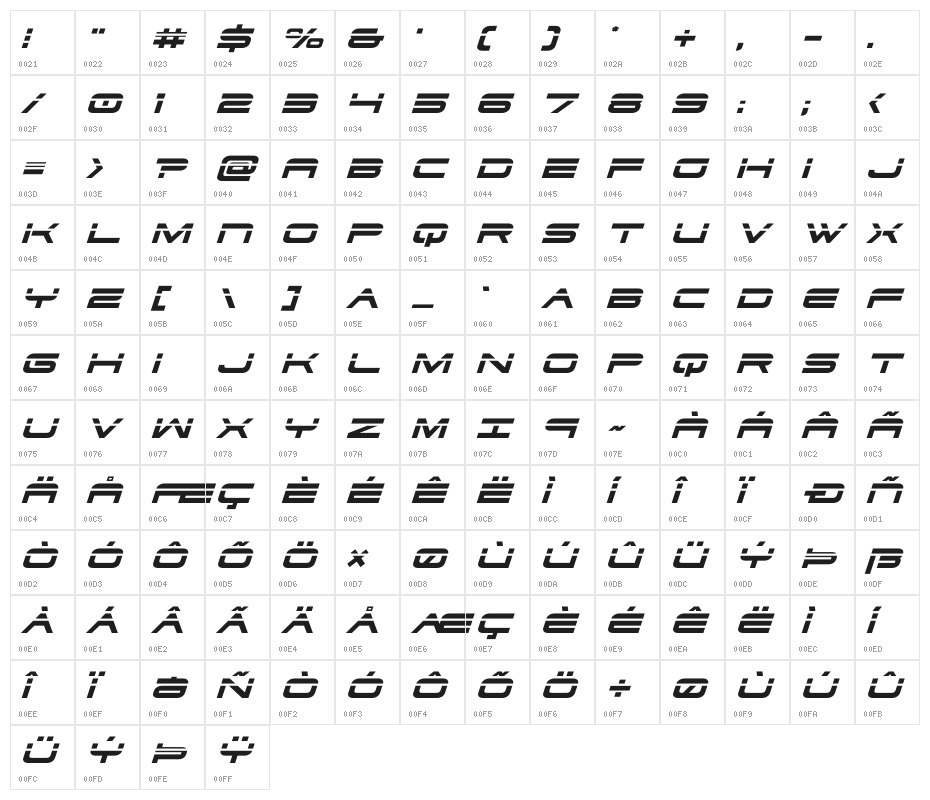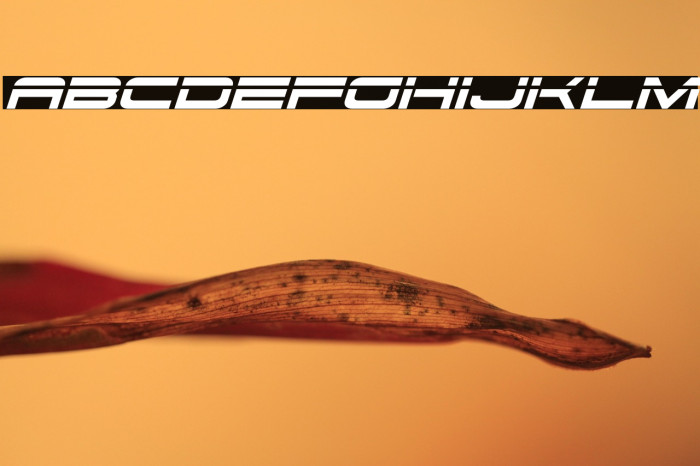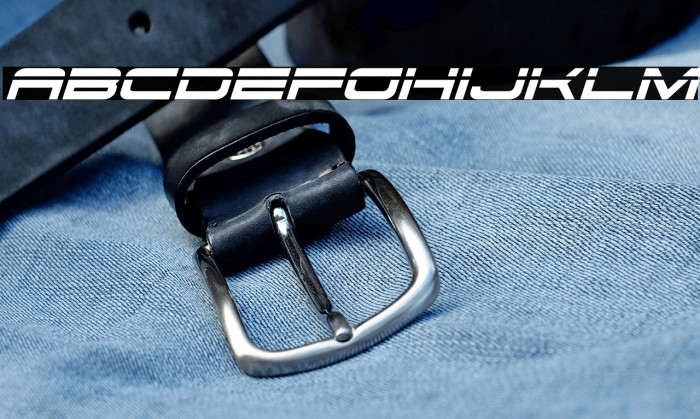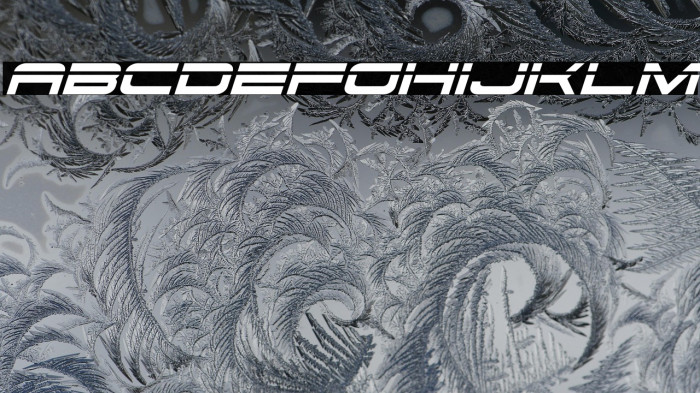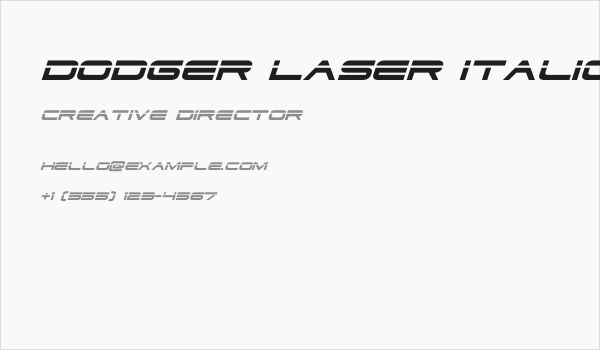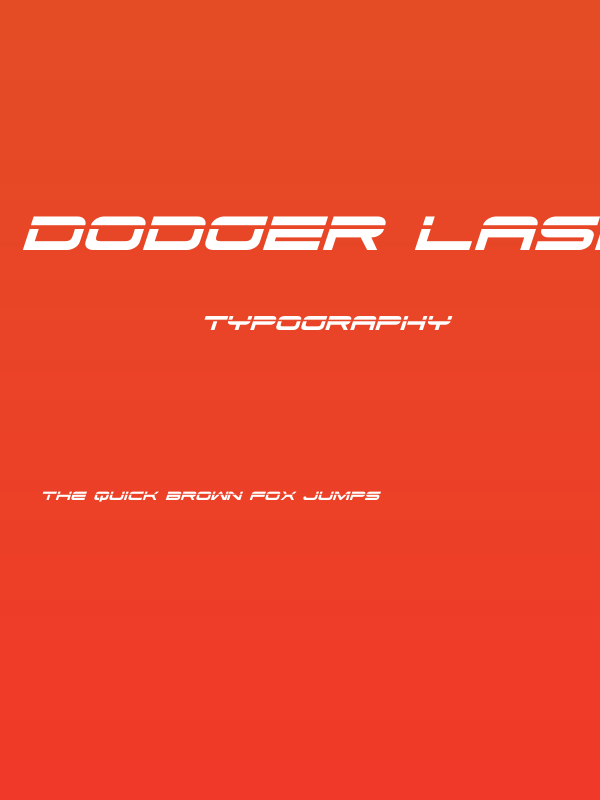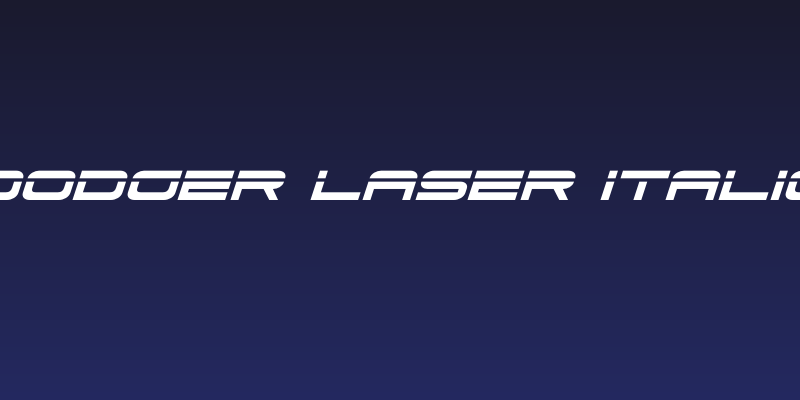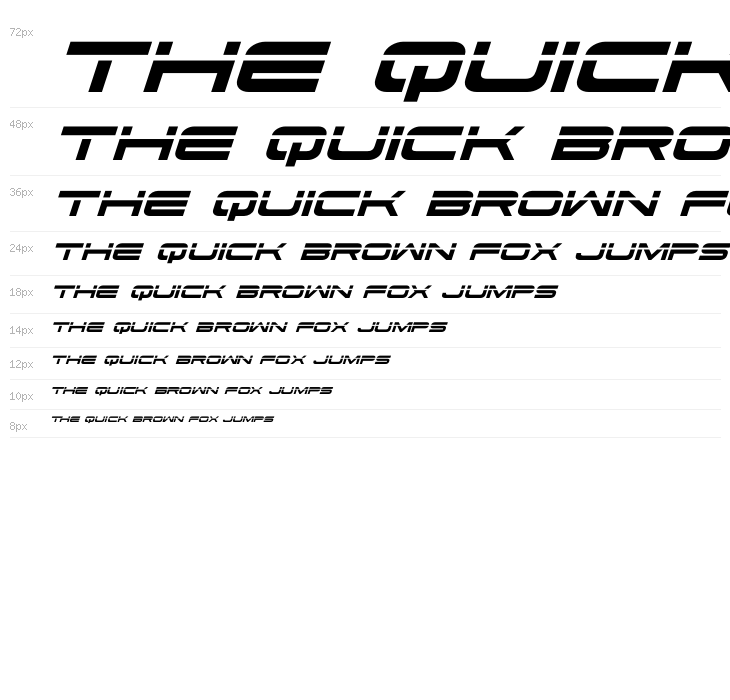
Dodger Laser Italic Font
Dodger Laser Italic Description
This font features a futuristic and sleek design with sharp, angular lines and a distinct italic slant. The characters are bold and dynamic, with a strong emphasis on horizontal strokes that give it a sense of motion and speed. The geometric shapes and clean cuts make it ideal for modern and tech-oriented designs. The uppercase and lowercase letters maintain a consistent style, while the numbers and special characters complement the overall aesthetic. The font's unique style is perfect for projects that require a cutting-edge and innovative look.
| Proposed Projects | Ideal for technology branding, sci-fi posters, video game titles, and modern advertising. |